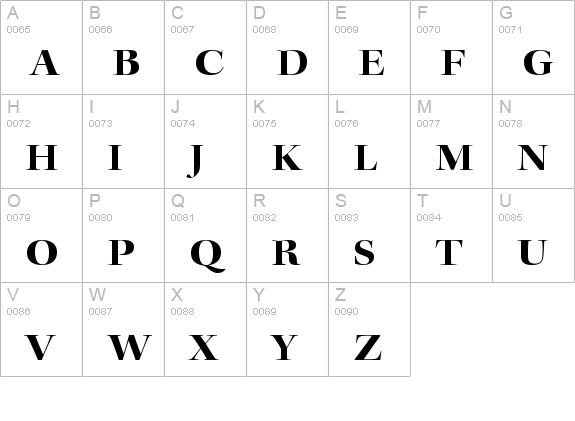
Kepler Std Bold Extended Display Font Details
Kepler Std Bold Extended Display is a strong, high-contrast, extended-width variant in the Kepler typeface family \xE2\x80\x94 well suited to headlines, attention-grabbing titles, and strong calls-to-action.
Kepler Std Bold Extended Display font is a captivating and versatile typeface that exudes confidence and modernity. Its bold and extended letterforms make it an ideal choice for eye-catching headlines, titles, and large-scale designs. With its strong and commanding presence, Kepler Std Bold Extended Display font effortlessly captures attention and demands to be noticed. Its sleek lines and bold strokes create a visual impact that is both striking and memorable. This font offers a unique balance between elegance and boldness, making it suitable for a wide range of design projects. Whether used in advertising, branding, packaging, or editorial designs, Kepler Std Bold Extended Display font adds a touch of sophistication and professionalism to any composition. One of the greatest advantages of Kepler Std Bold Extended Display font is that it is freely available to download at FontsMarket.com. This means that designers and creatives can easily access and utilize this exceptional font without any cost. Its availability as a free resource allows designers to have the freedom to experiment and explore its versatile applications. Overall, Kepler Std Bold Extended Display font is a powerful and visually captivating typeface that leaves a lasting impression. Its boldness, elegance, and availability as a free download make it an excellent choice for any design project.